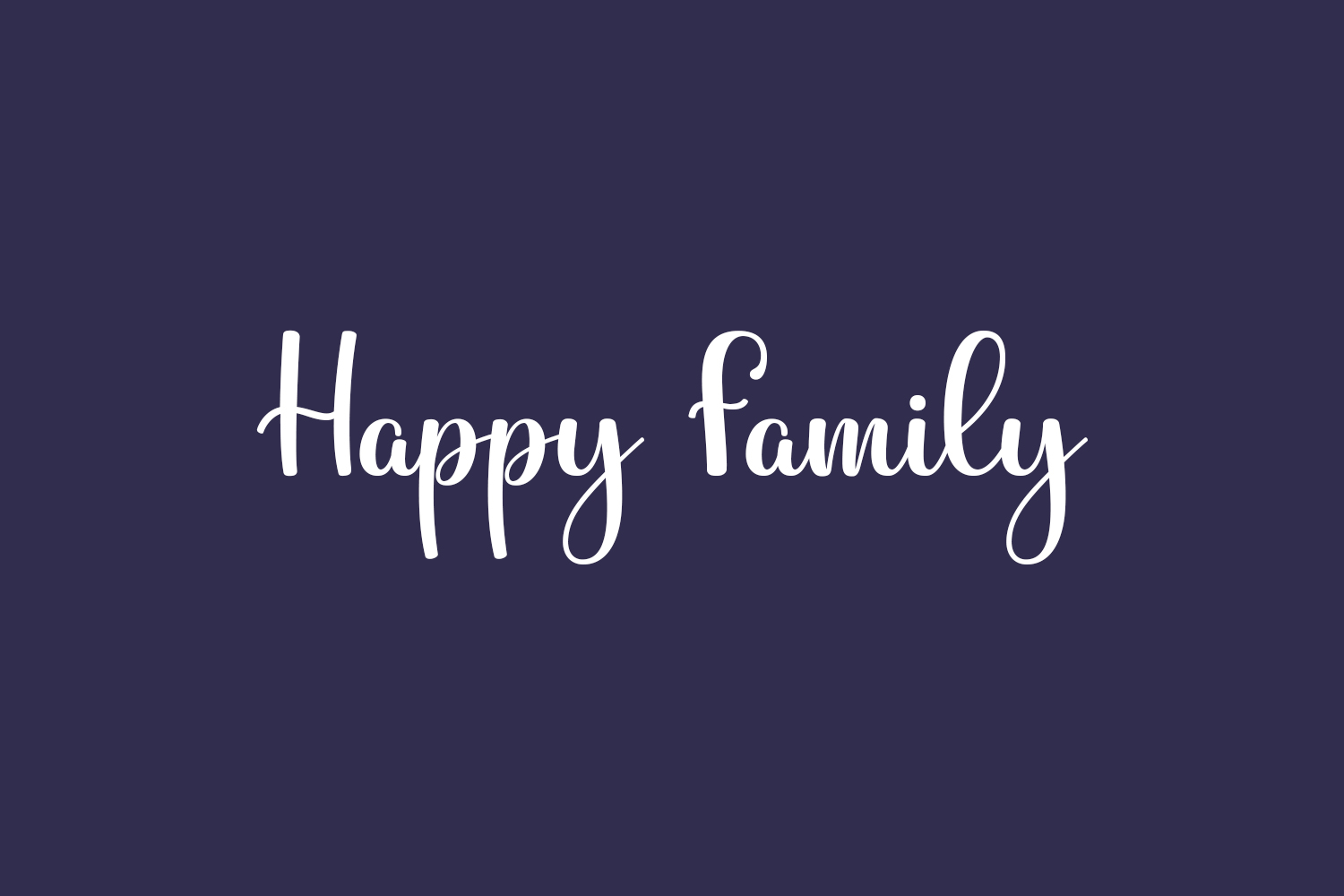
Happy Family Free Font is a cool looking and friendly handwritten font. Whether you are using it for cartoon-related designs, children’s games, quotes, titles, brand names, book covers, posters, or just any creation that requires a touch of beauty, this font is a great choice. Happy Family Free Font was designed by Luluk Surotul and is free for personal use only. Please purchase the full version for commercial use.